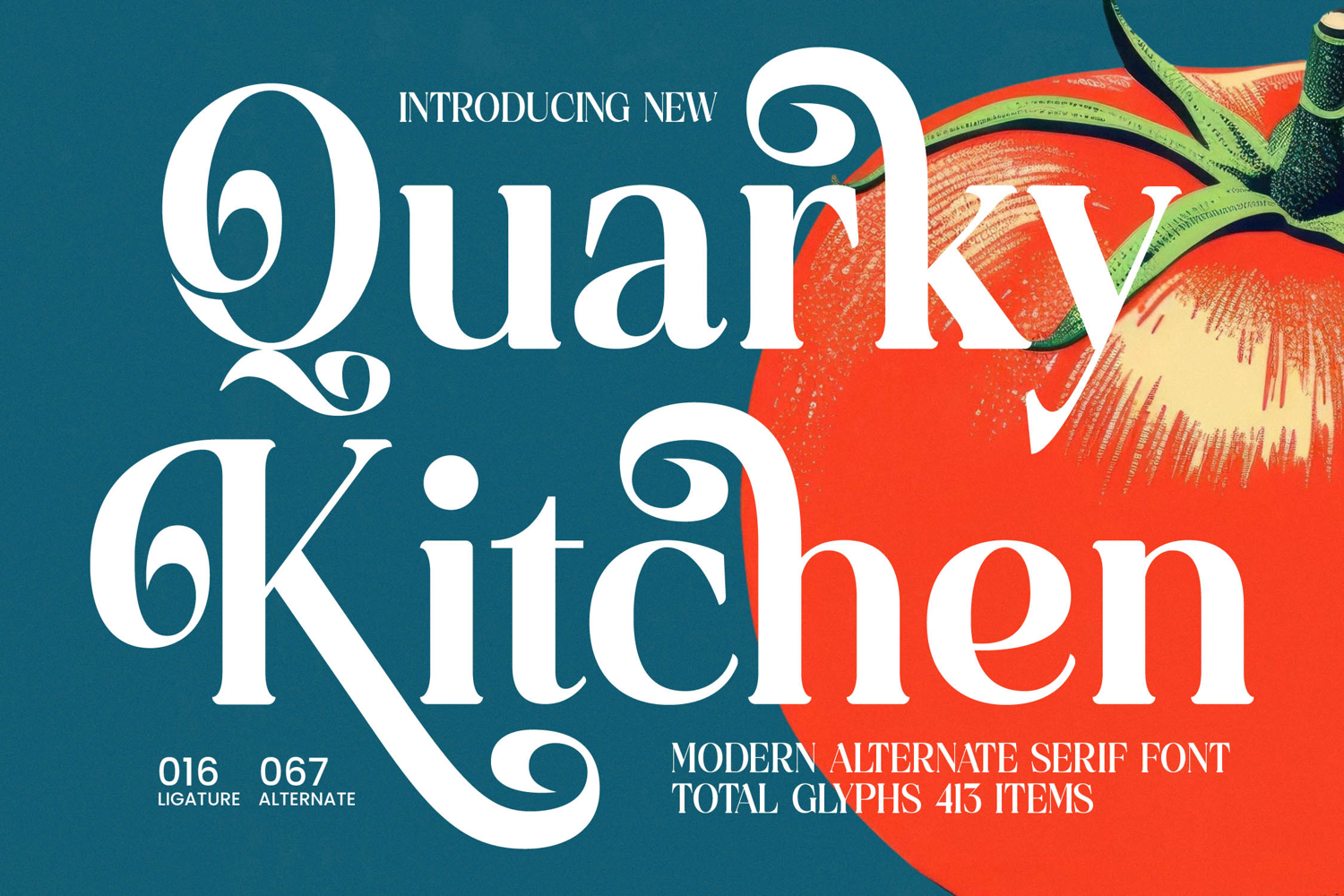
Quarky Kitchen - Modern Alternate Serif Font
Elevate your designs with unparalleled elegance and modern flair. Introducing Quarky Kitchen - Modern Alternate Serif Font, a typeface meticulously crafted to infuse sophistication and character. Its distinctive design blends classic serif charm with a contemporary twist, featuring graceful curves and a captivating presence that instantly commands attention. This font embodies a perfect harmony of tradition and innovation, an indispensable asset for a unique visual voice.
Unlock a world of creative possibilities with its dynamic alternates and ligatures. Quarky Kitchen - Modern Alternate Serif Font boasts a striking balance of high-contrast strokes and refined serifs, creating a bold yet approachable aesthetic. Extensive alternates and ligatures provide immense versatility, allowing for truly bespoke typography that adapts to diverse design needs. This richness ensures your text delivers an impactful and memorable impression.